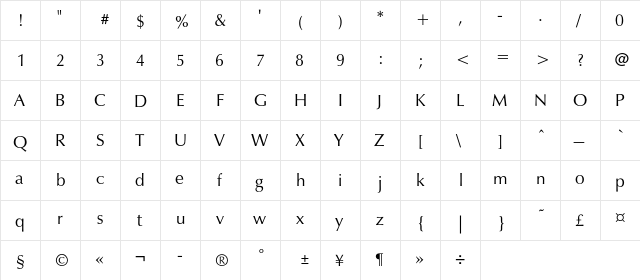
ExyleC Regular
Design Context for ExyleC Typeface
ExyleC offers clean, dependable letterforms without strong stylistic allegiance, making it a practical choice for designers who need flexibility.